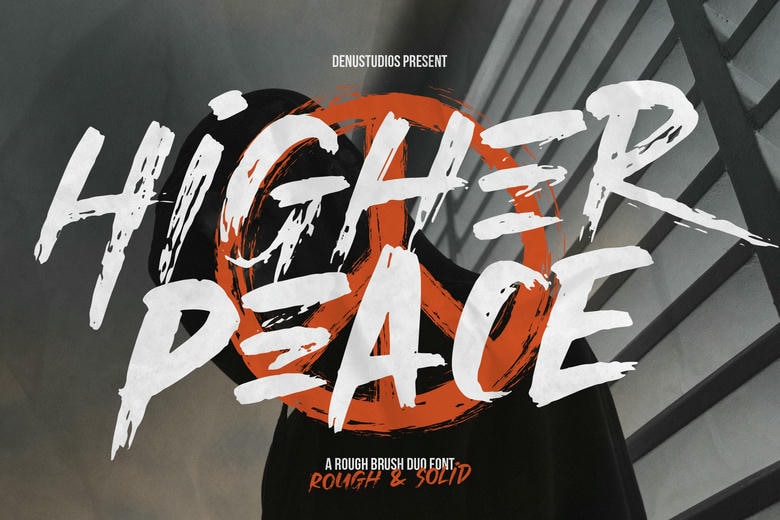
Higher Peace Font
Higher Peace is a font duo with two styles: an extroverted, heavy neutral script and an understated Georgian sans-serif. Combined together, they make a beautiful contrast – a fearless shocker of red and a peaceful subtle of green which is perfect for any creative work such as logos, quotes or invitations.
Higher Peace Brush Script Font